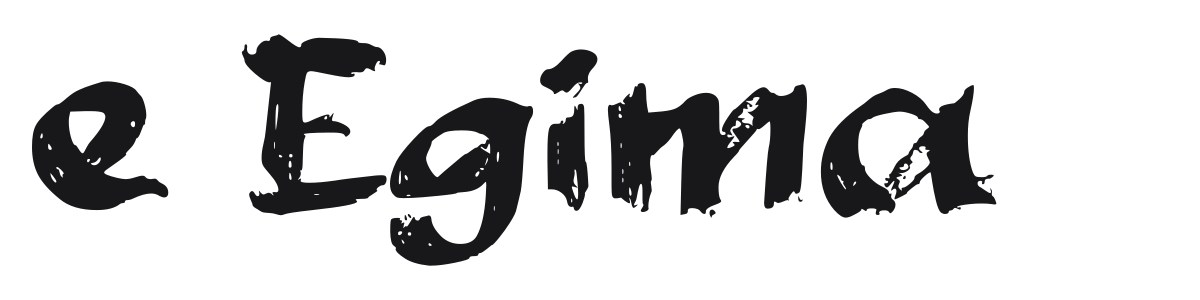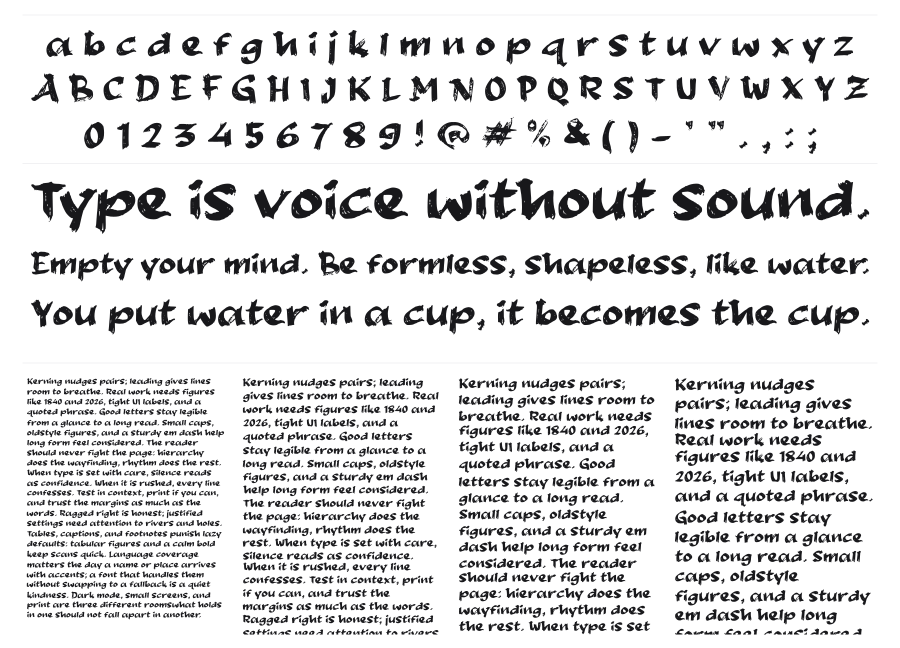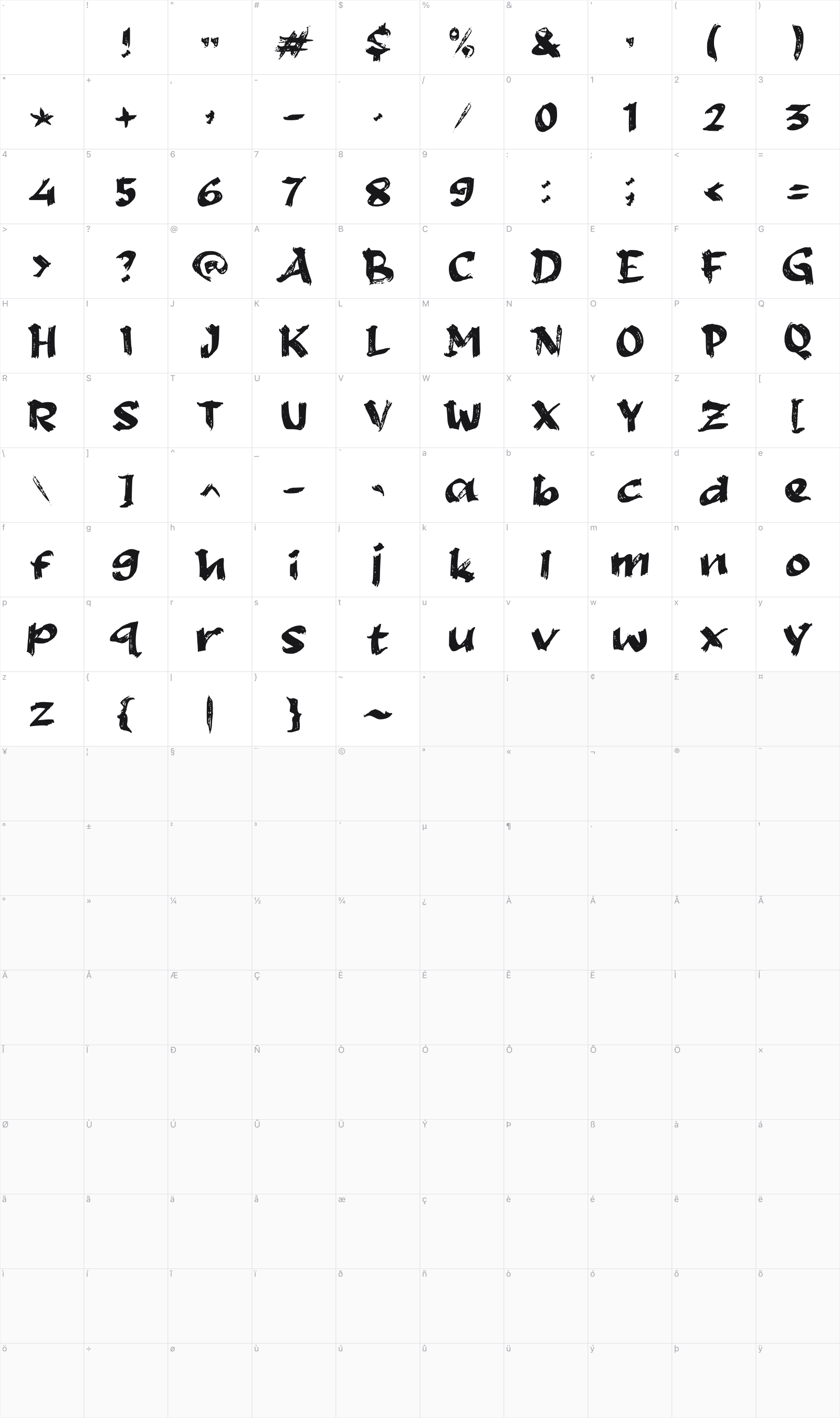
e Egima
Egima is a rough, heavy brush script with deeply textured strokes and a gritty, hand-painted character. The ink-worn edges and irregular contrast between thick and thin strokes give it an unmistakably raw energy, somewhere between street calligraphy and punk poster art. It commands attention at large sizes and works naturally in music, streetwear, and food branding.